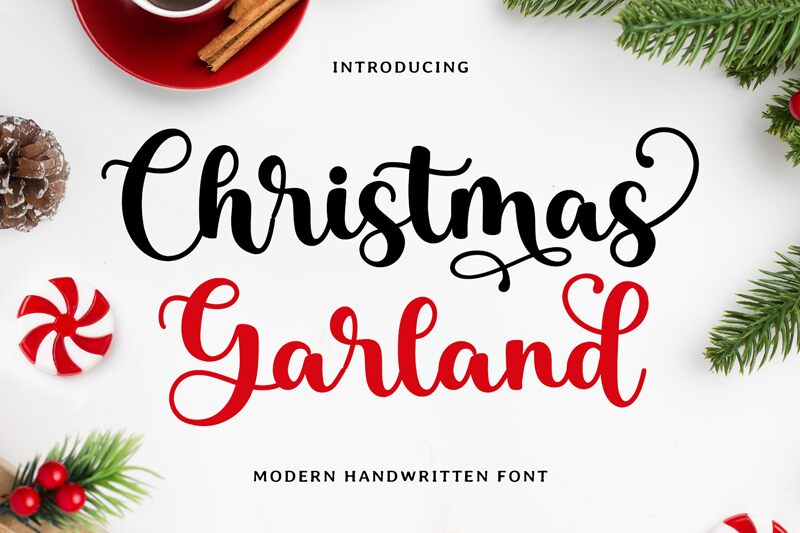
Christmas Garland font by Mozatype is a free font filled with the fantastical spirit of the holidays! Capturing the joyous essence of Christmas, this delightfully whimsical typeface is perfect for pairing with holiday graphics and illustrations.
Christmas Garland has an expressive and stylish design while remaining invitingly elegant. The font can serve contemporary use in holiday design and inspire warmth and cheer. Great for all things Christmas and New Year, the font can be used for greetings cards, invitations, gift cards, notebooks, postcards, table calendars, and more. Holiday decorations like Christmas tree ornaments, baubles, stickers, and gingerbread cookies are additional examples of projects to which it can be applied.